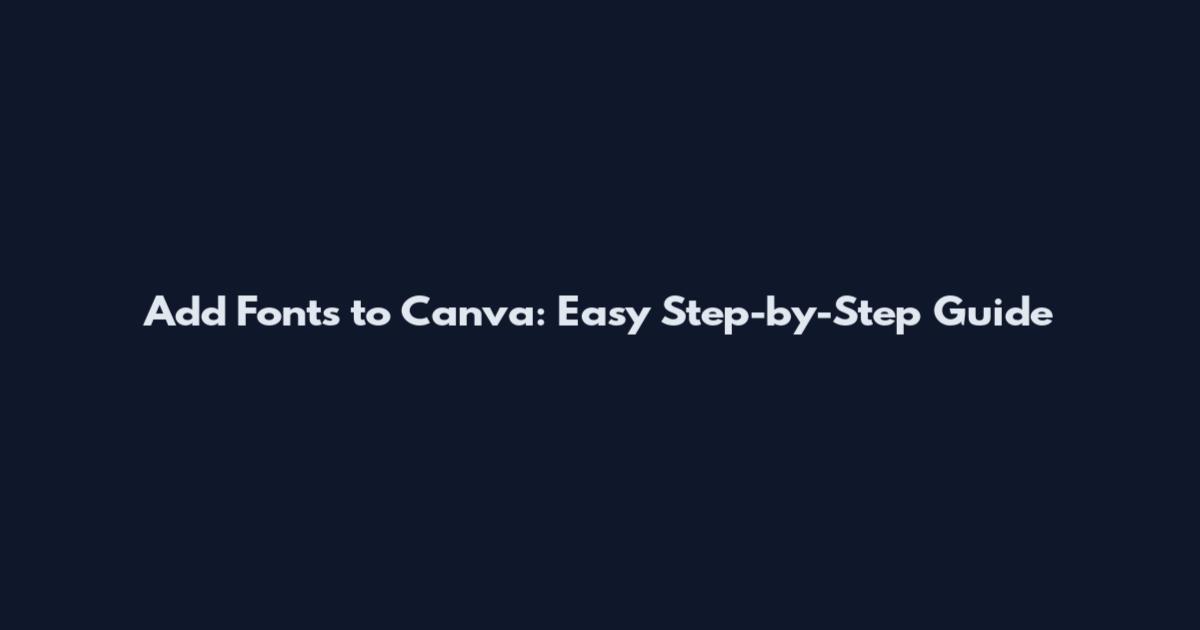
Add Fonts to Canva: Easy Step-by-Step Guide
Adding a custom font in Canva instantly sharpens your brand identity and makes text stand out across social posts, presentations, and marketing materials. With a straightforward upload process and built-in styling tools, Canva gives both beginners and experienced designers full control over typography.
You can bring in your own typeface or pick from thousands of free and premium options without leaving the editor. The platform handles spacing, alignment, and previewing so you stay focused on message and design.
Font Management Overview
Canva organizes fonts into clear categories so you can match the right mood to every project.
Font Category Style Example Best For Access Type
Sans Serif Modern, clean lines Tech brands, minimal layouts Free & Premium
Serif Classic, high contrast Editorial, luxury, formal docs Free & Premium
Display Bold, decorative headlines Posters, branding accents Premium
Handwritten Casual, script feel Social stories, personal notes Free & Premium
Upload and Use Your Own Fonts
If you have a licensed TrueType or OpenType file, you can add it directly to Canva for use across text elements.
Step-by-Step Upload Process
Start in your Canva account, open the Brand Kit, and upload the font file so it becomes available in your team’s style library.
Applying Custom Fonts in Templates
Once uploaded, select any text box, choose your custom style from the font menu, and adjust size and color to fit your layout.
Design Consistency with Theme Fonts
Canva theme fonts let you set a primary and secondary typeface that automatically applies across headings and body text.
Setting Global Typography Rules
Pick one font family for headings and another for body copy to maintain hierarchy and improve reader navigation.
Team-Wide Type Standards
Save your approved combination to Brand Kit so collaborators keep a unified look on slides, flyers, and social graphics.
Responsive Text Behavior
When you resize a text box, line breaks and spacing adapt while preserving the chosen font, keeping designs polished on any device.
Organizing and Managing Font Collections
Custom collections help you group typefaces by campaign, client, or purpose so the right font is always within reach.
Creating and Editing Collections
Label each collection clearly, add a short note about the intended use, and reorder fonts by frequency of use.
Collaborative Access Control
Set team permissions to view or edit collections, ensuring brand guidelines stay consistent across projects and departments.
Can I add a font I already purchased from another retailer?
Yes, as long as the license allows embedding, you can upload the TTF or OTF file to Canva and use it in your designs.
Will my uploaded font work in the Canva mobile app?
Yes, once the font is added to your Brand Kit and synced, it appears in the mobile editor for consistent branding on the go.
What happens if a shared template uses a font I do not have access to?
Canva will substitute a similar font or fall back to a default style, but you can switch it to any font you own before exporting.
Can I remove a font from my team library if it is no longer needed?
Yes, you can archive or delete custom fonts from your library, which helps keep your selection focused and manageable.
Advanced Tips for Professional Typography
• Limit your projects to two or three complementary fonts for cleaner layouts.
• Use high-contrast pairing, such as a bold serif headline with a light sans body.
• Test readability on small screens before finalizing social media posts.
• Save approved combinations to your Brand Kit for instant reuse.